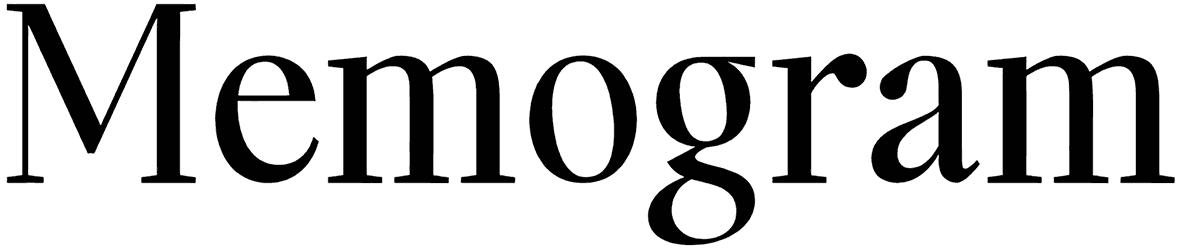
Memogram Font
If you want to have better luck communicating with your potential clients and letting them know about your high standards, the fancy style of this serif font can work to your advantage if used in business cards.
Anyone can see your great sense of fashion when you choose Memogram to present your brand for jewelry design, law firms, restaurants, music institutes, and any other luxury business. So with Memogram as your logo, even your high-end projects will be a great success.